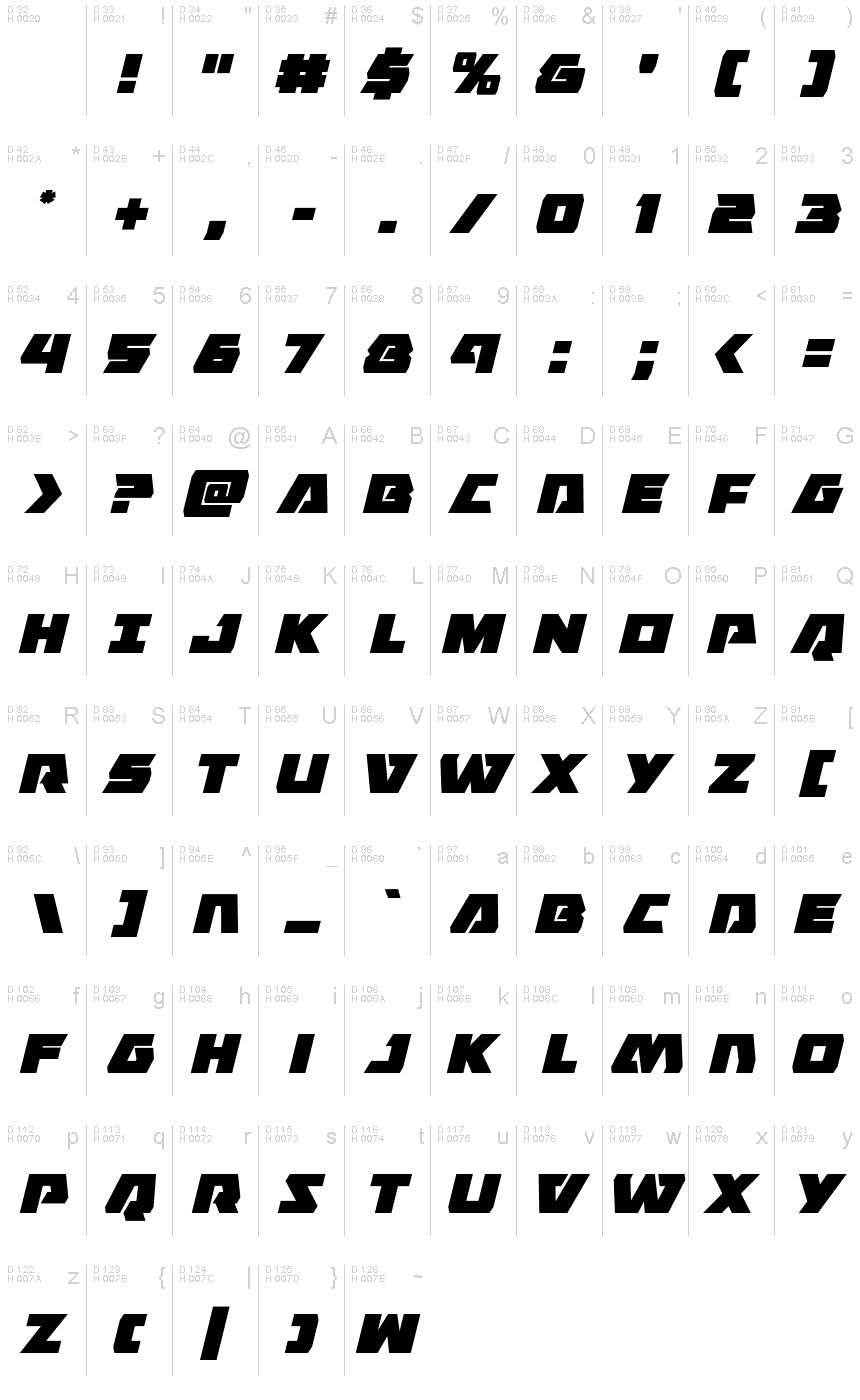
Eagle Strike Compact Italic
Eagle Strike Compact Italic is a display font designed by Daniel Zadorozny. With its futuristic style and extra-bold weight, this font is perfect for projects that require a bold and modern look. The expanded width of the font adds to its unique and dynamic appearance, making it suitable for a variety of design applications. Imagine using Eagle Strike Compact Italic on posters or billboards for sci-fi movies or music events, creating striking headlines for tech magazines, or even designing logos for forward-thinking startups. Let this font take your designs to new heights!